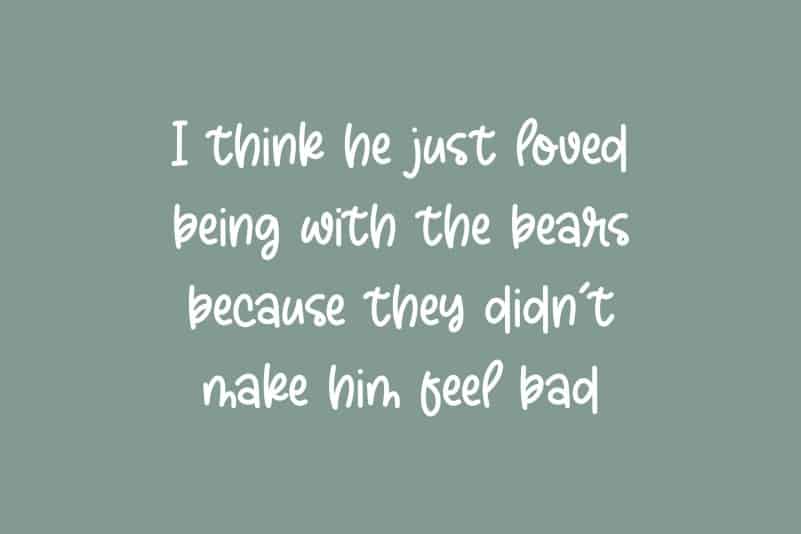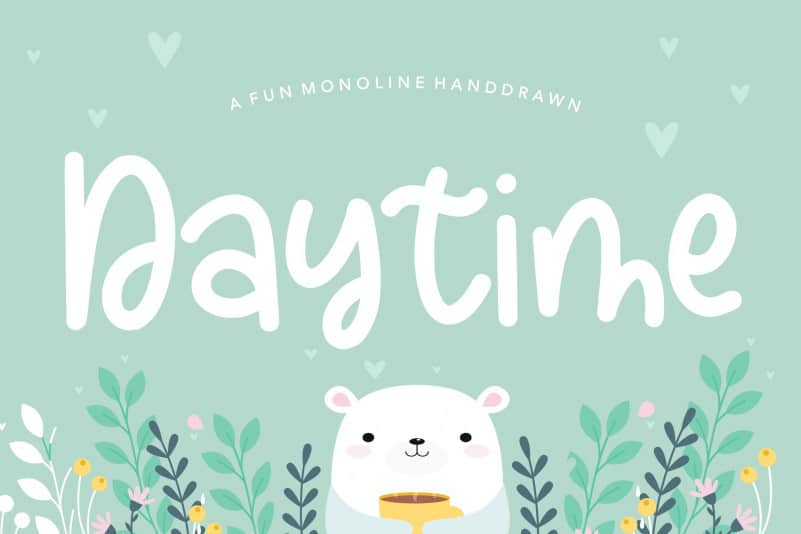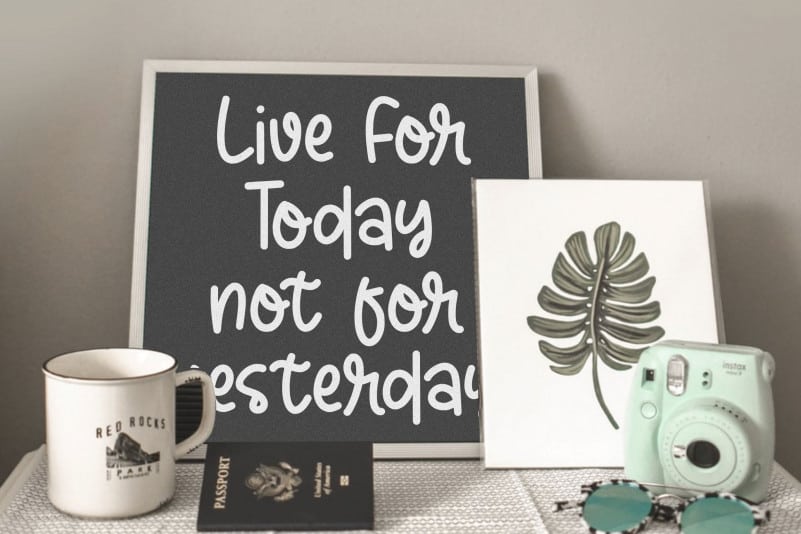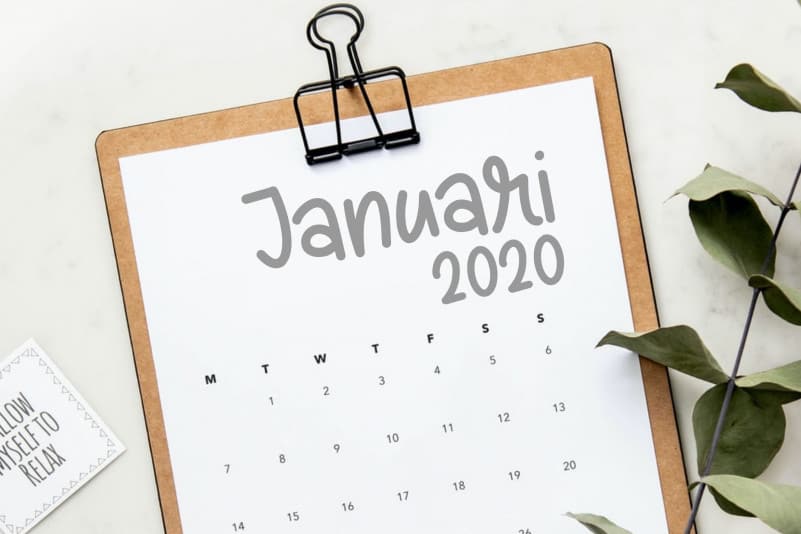
Daytime Fun Handdrawn Font
Proudly Present, Daytime Fun Handdrawn Font.
Daytime is a Fun Monoline Handdrawn Font.
Daytime is perfect for product packaging, branding project, megazine, social media, wedding, or just used to express words above the background.